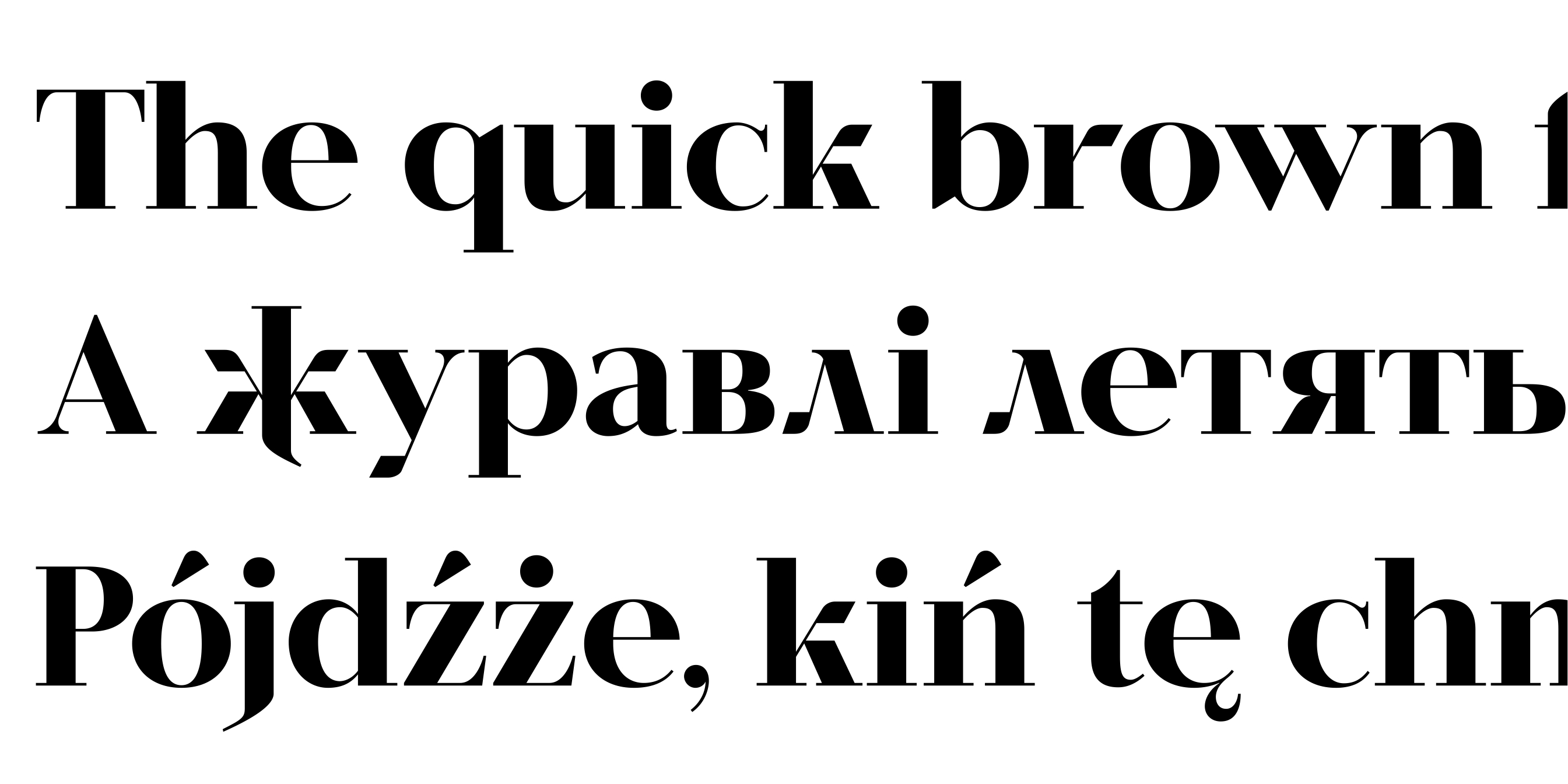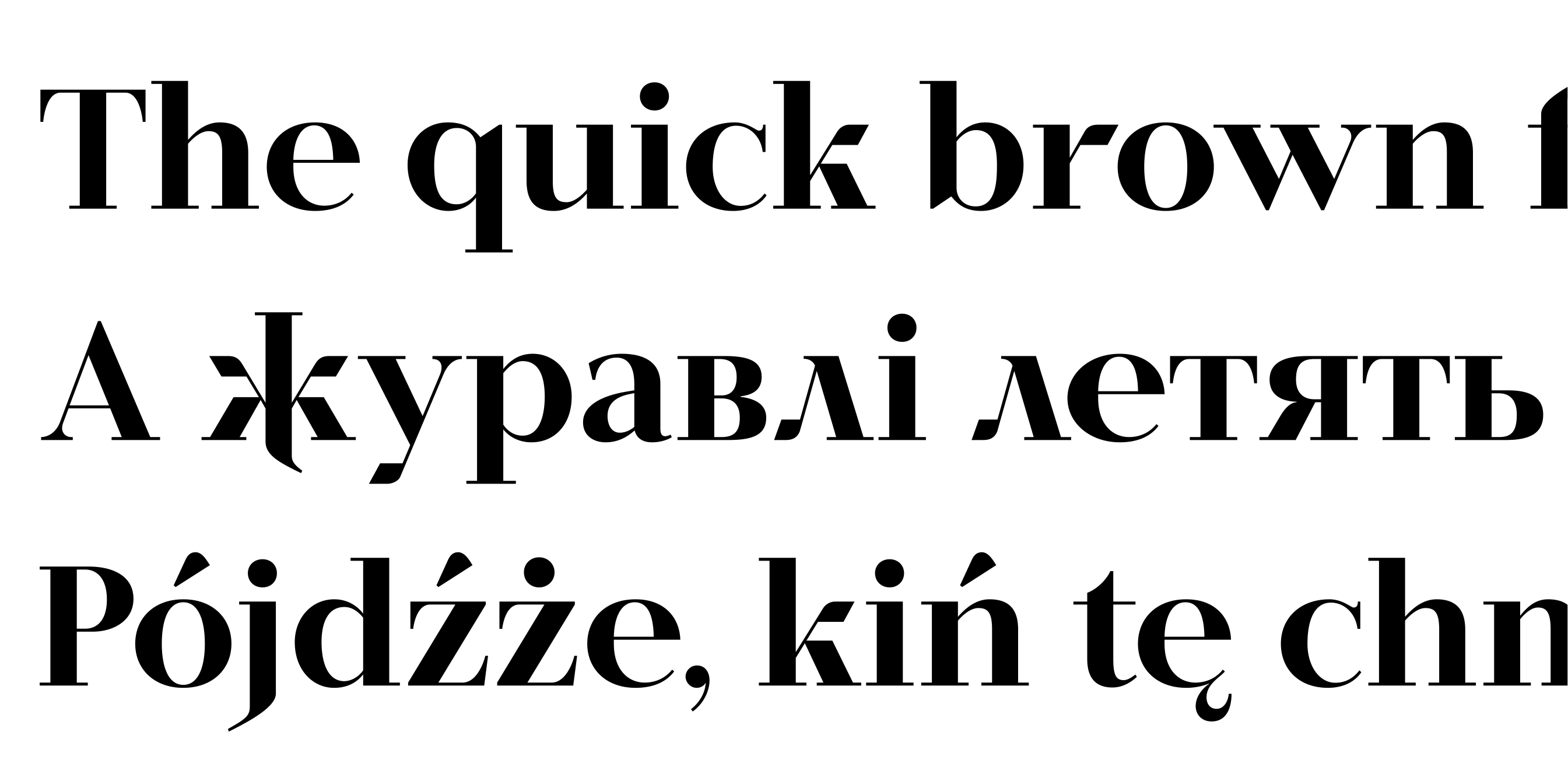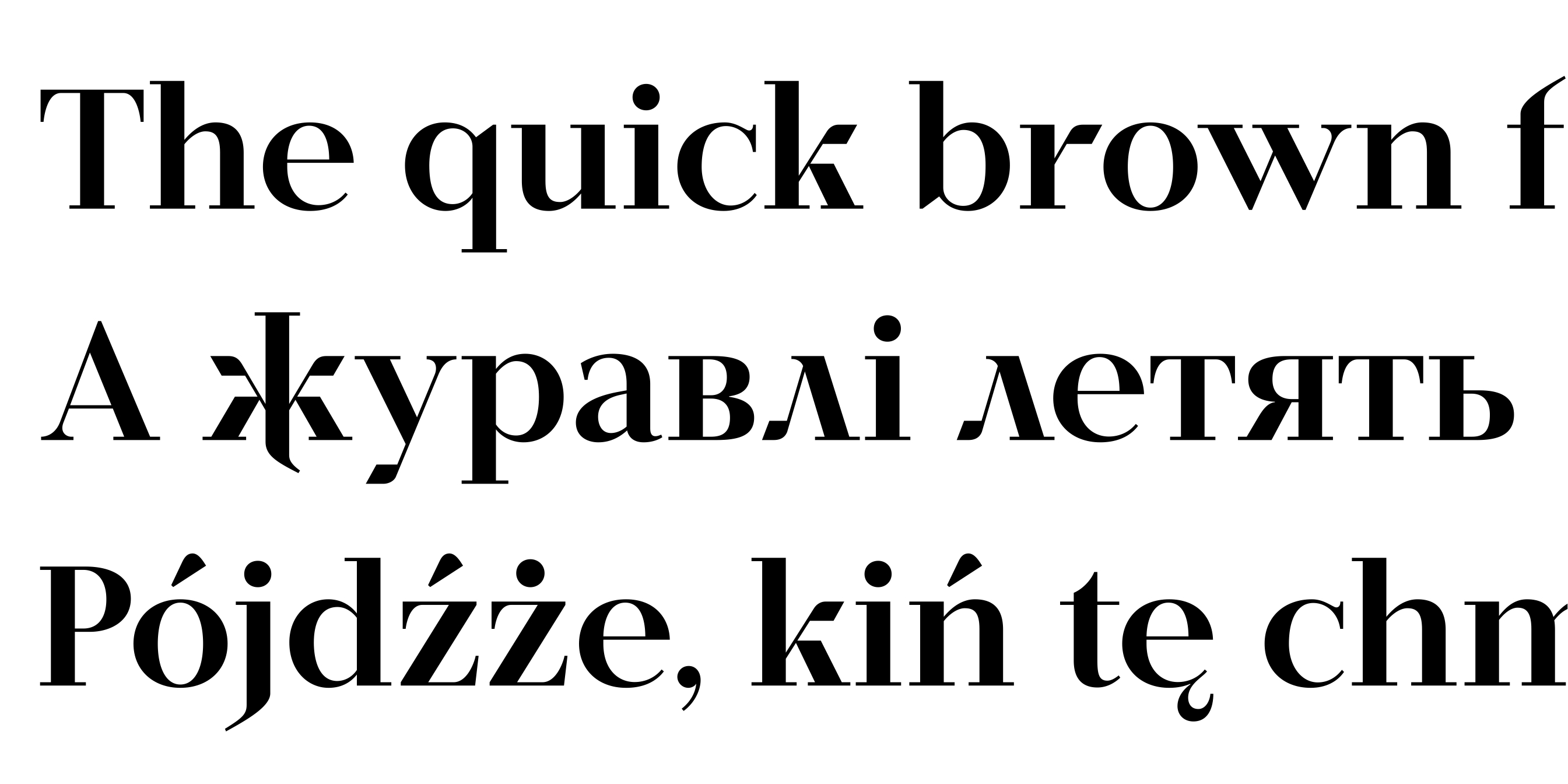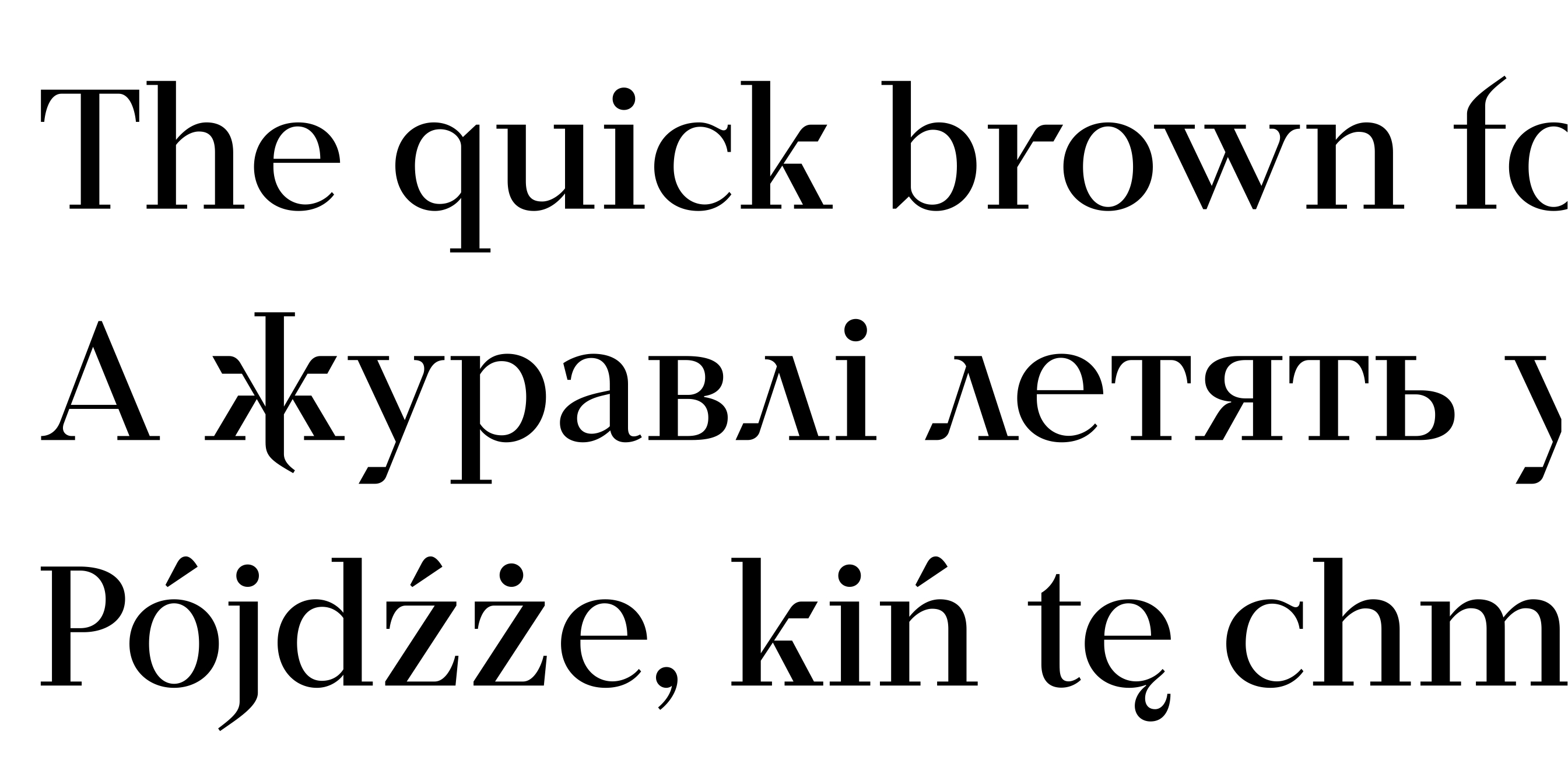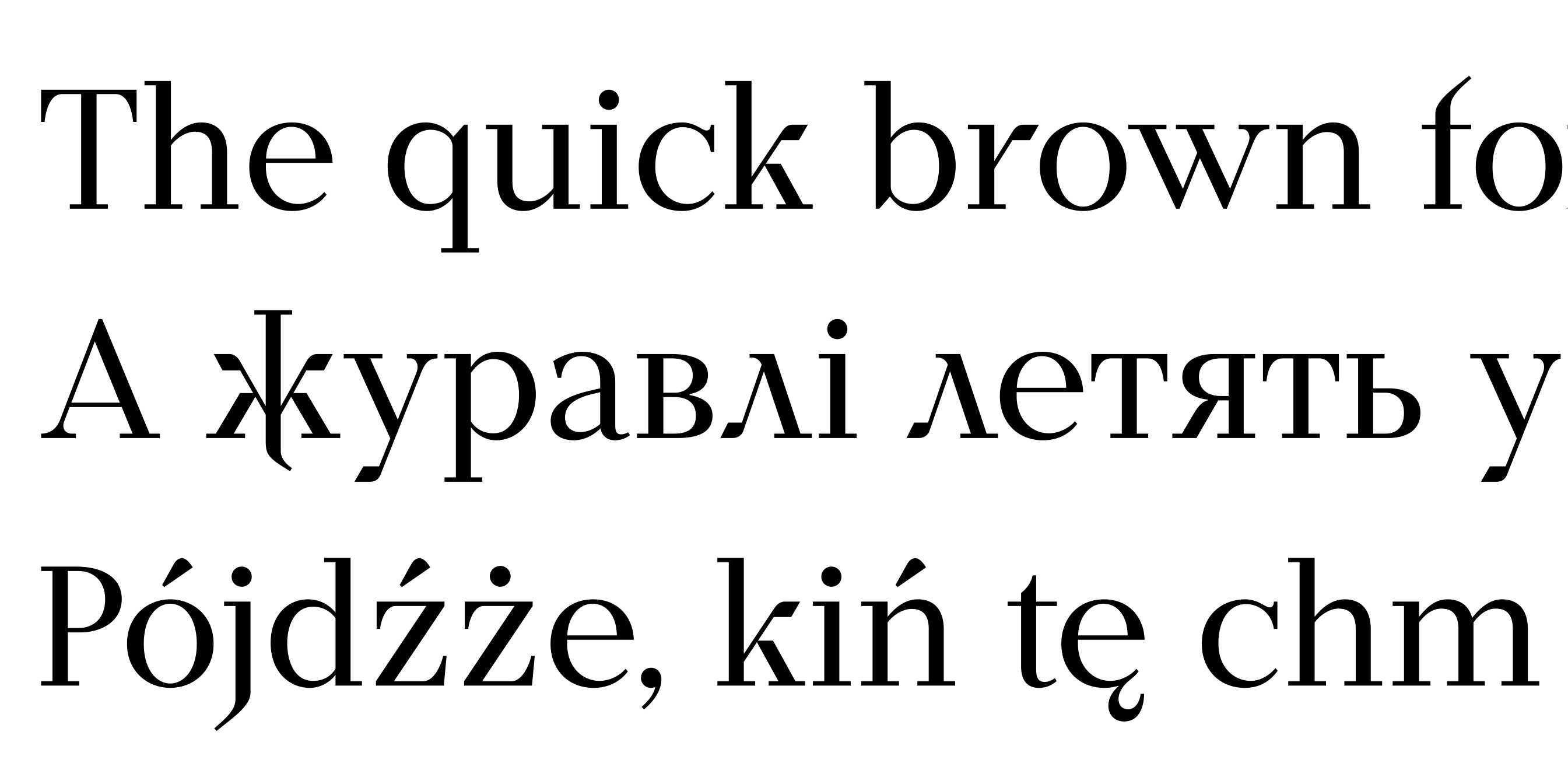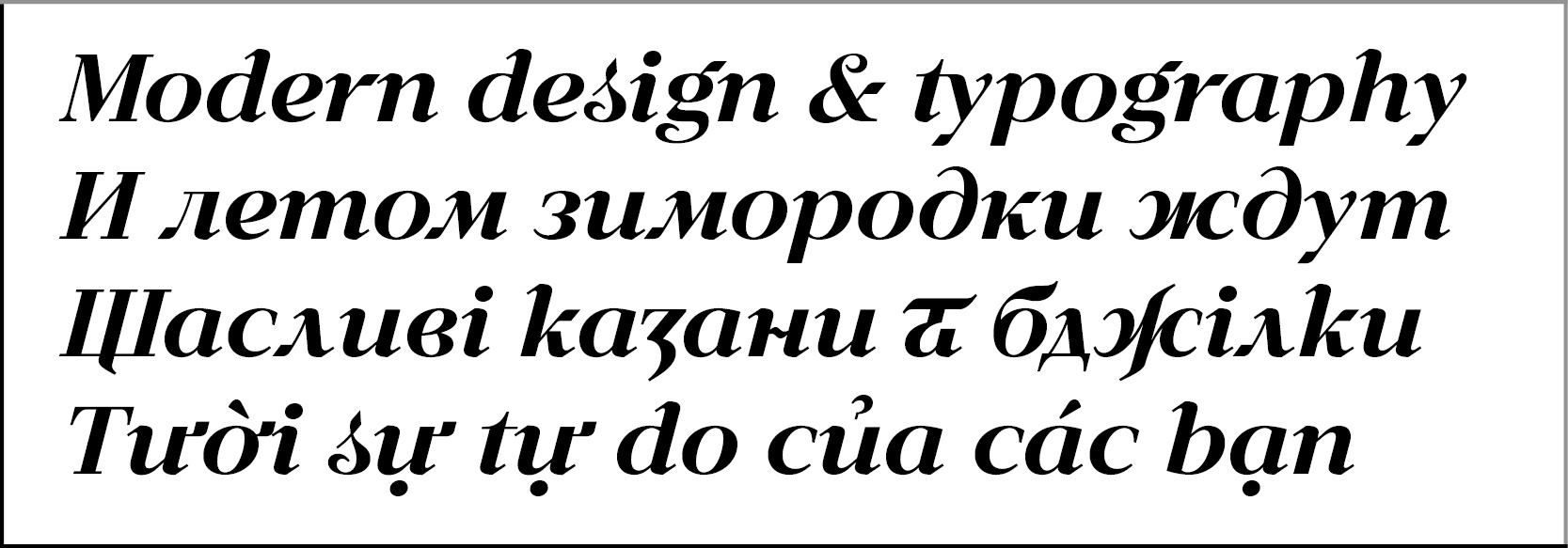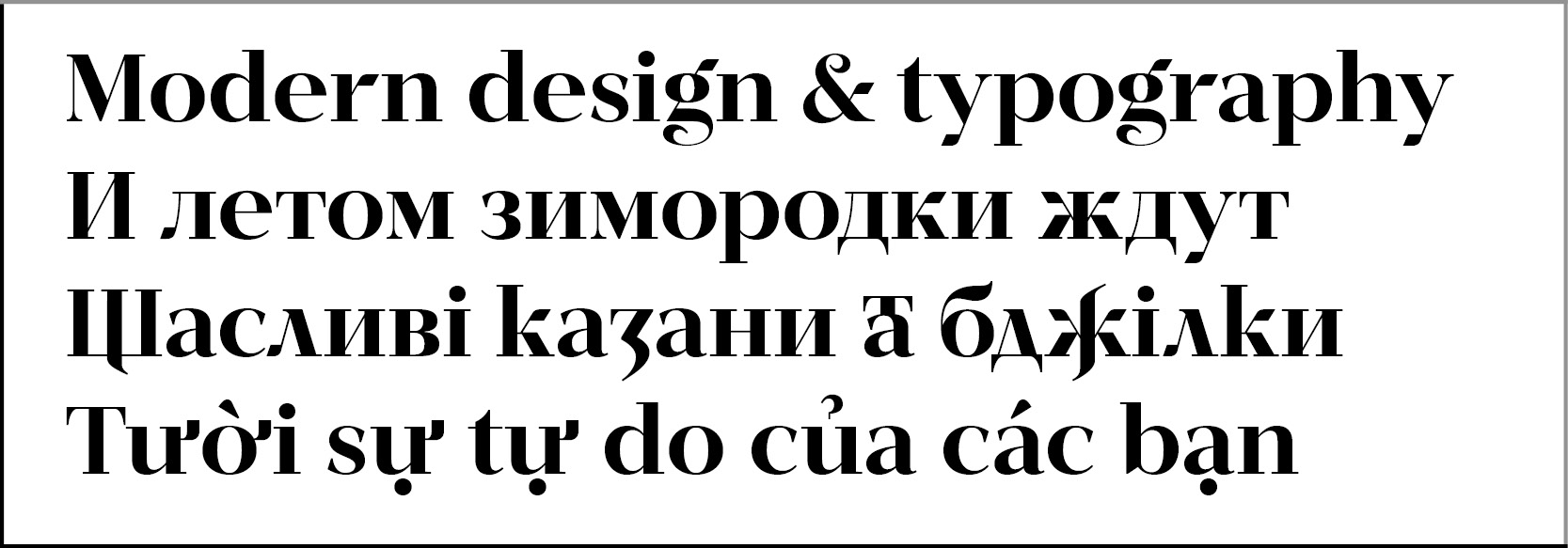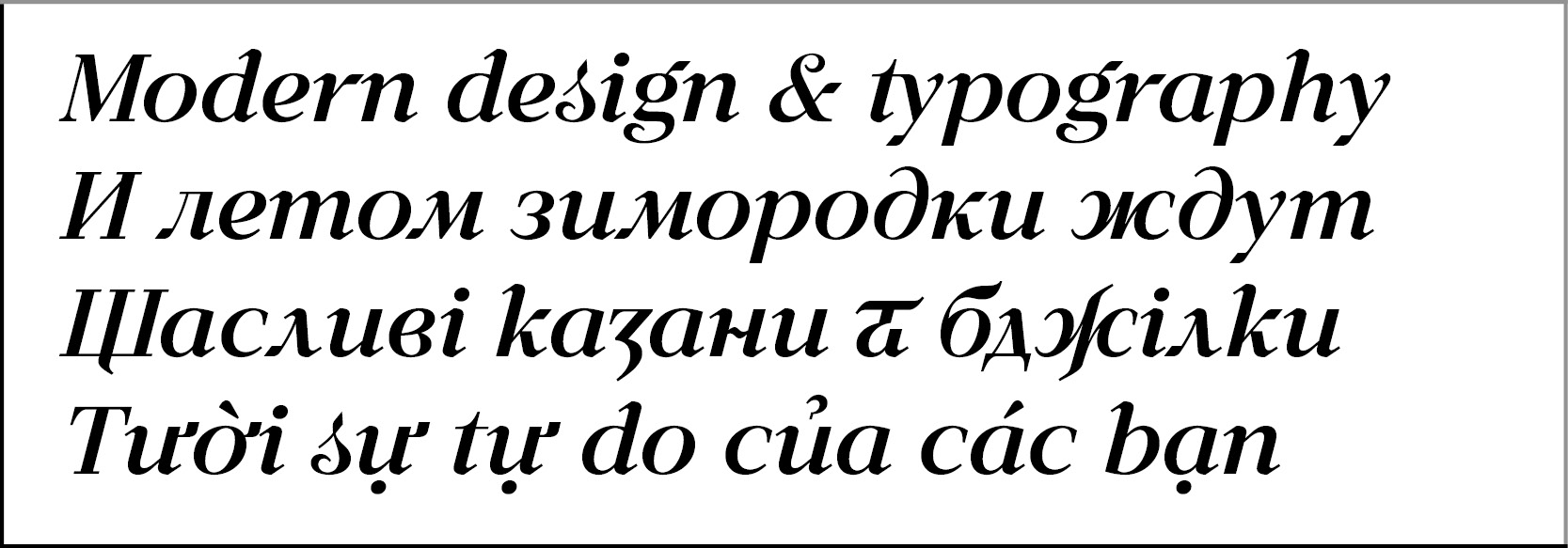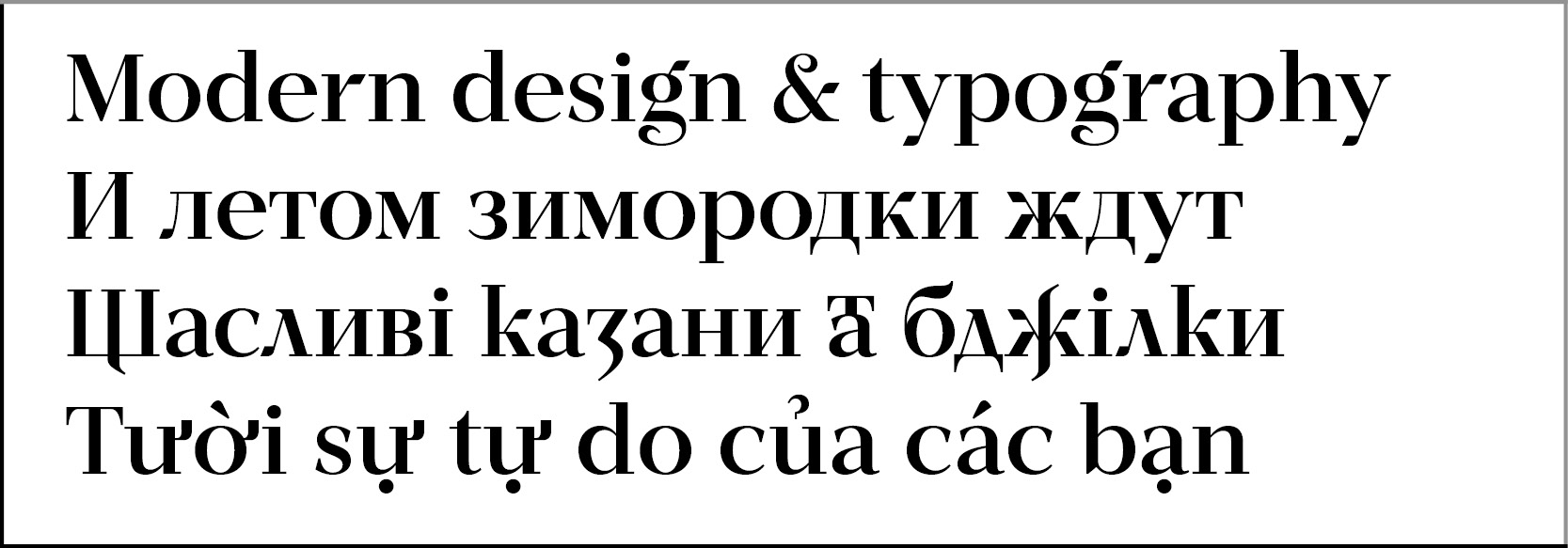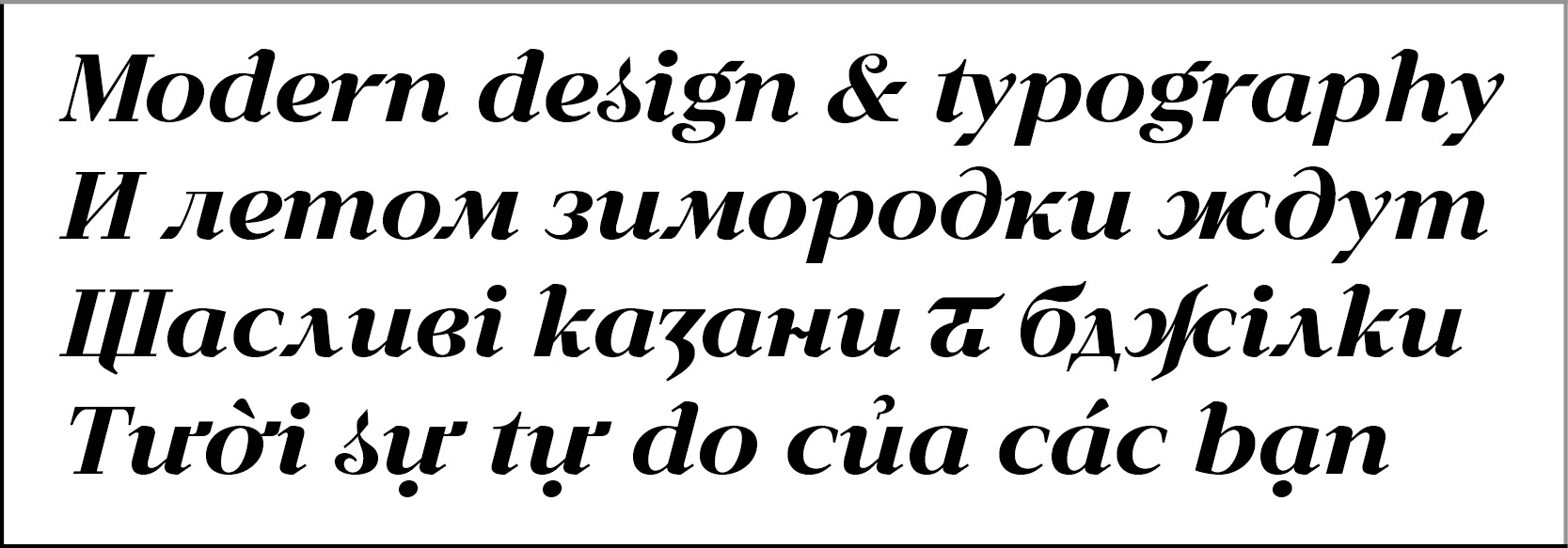
Display typefaces, Tetiana Ivanenko
IT Extrazium
Designer: Tetiana Ivanenko
Design date: 2022
The font family includes Latin ,  Cyrillic and Ukrainian alphabet systems.
The font can be used as a Display and title font.